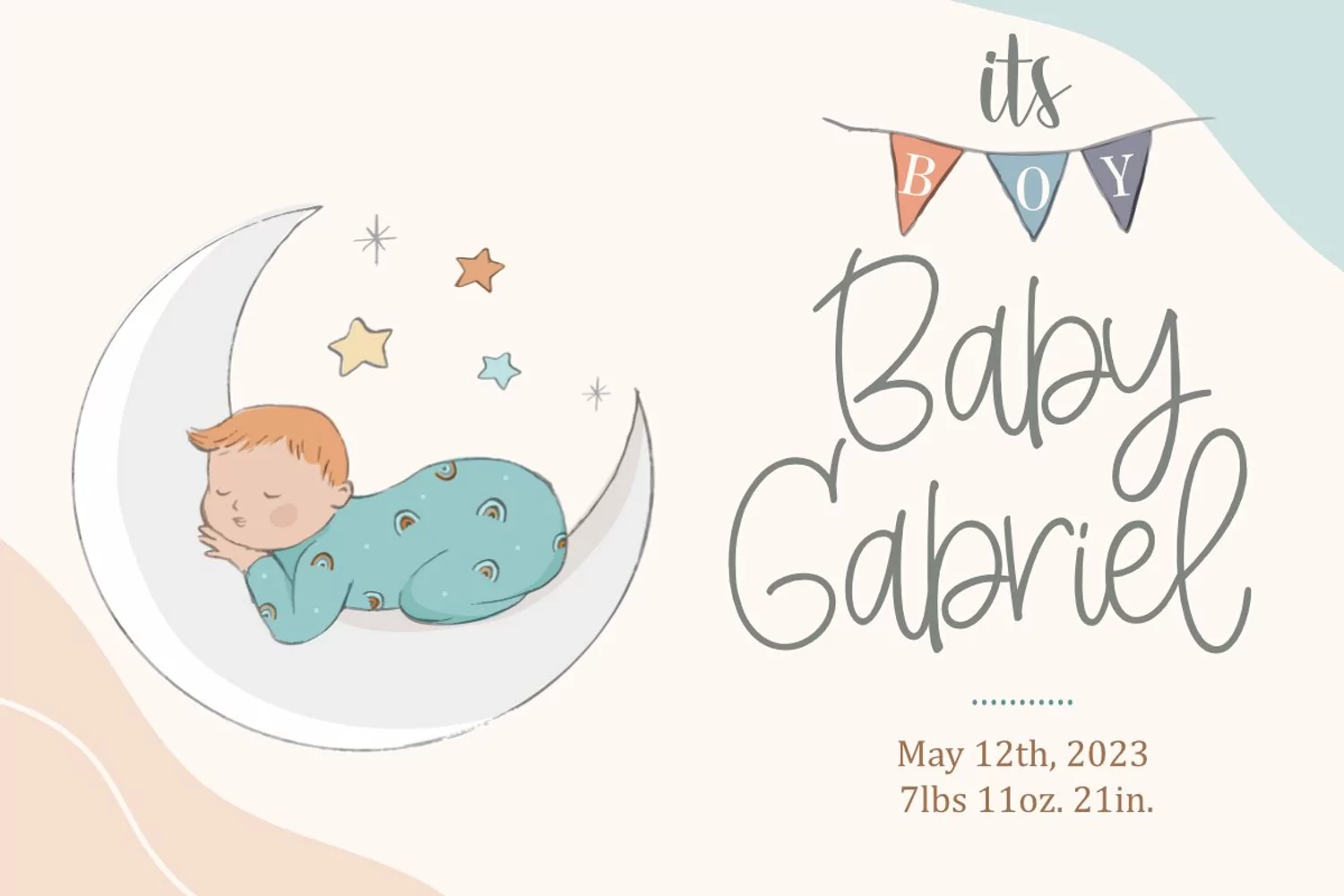
Polina Move Is a Script Font with Swash
You Can Mix And Match for Your Awesome Project
This fonts is ideal for crafting, branding and decorate your any project. This fonts are perfect for wedding invitation or your blog. Also with their help, you can create a logo or beautiful frame for your home. Or just use for your business, book covers, stationery, marketing, magazines and more.